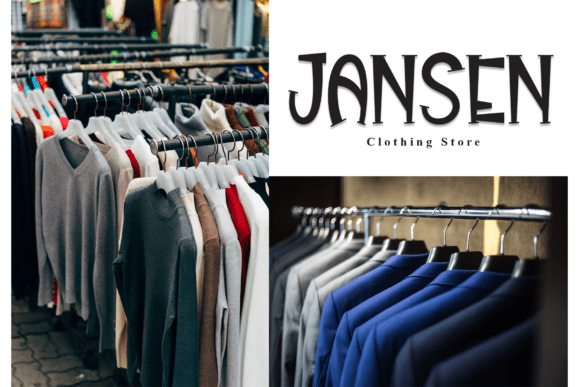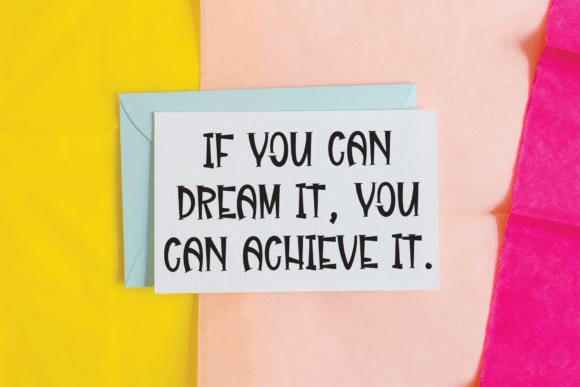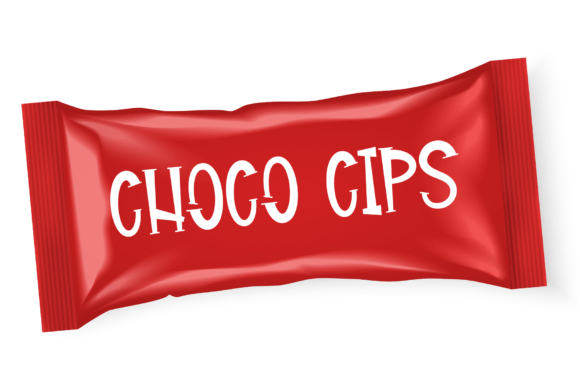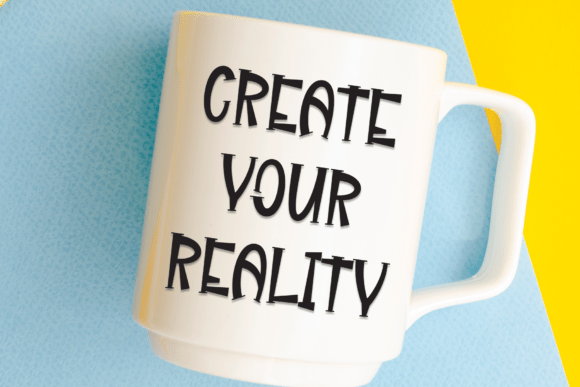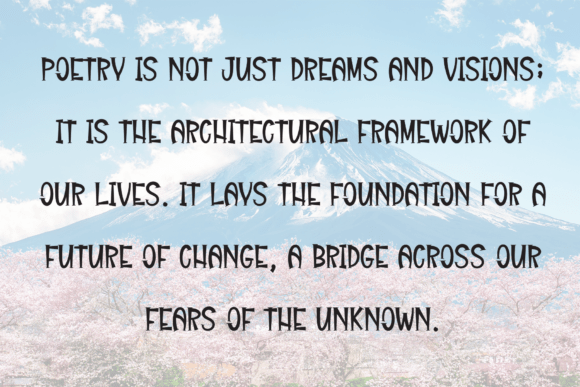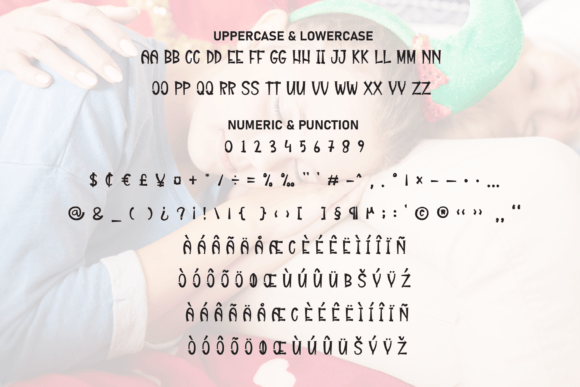
Introduction to Grinch Dreaming Font
Introducing a charmingly sweet and amiable handwritten display font, which exudes a sense of friendliness and fun.
This adorable font is the perfect addition to wedding invitations, greeting cards or any design that seeks to add a dose of cheerfulness and gaiety Breathe life into your creations with the playful allure of this delightful font.